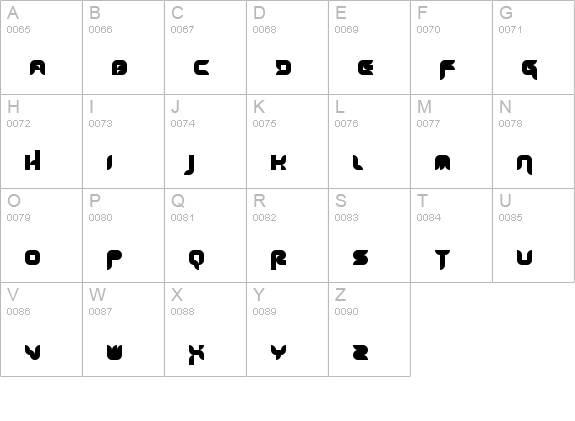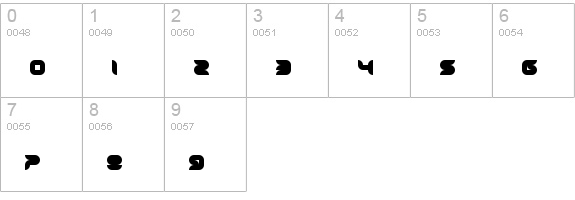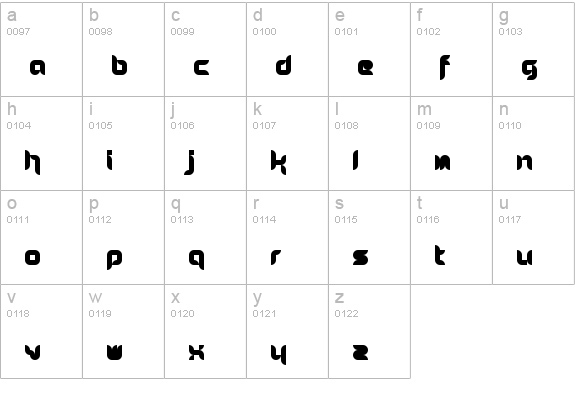
Stuntcroft Regular Font Details
Stuntcroft Regular is the standard, neutral variant in the Stuntcroft typeface family \xE2\x80\x94 well suited to general body text, paragraphs, and standard typographic work.
Stuntcroft Regular font is a versatile and dynamic typeface that exudes a sense of energy and excitement. With its bold and modern appearance, this font is perfect for adding a touch of flair to any design project. Whether you're creating posters, flyers, or branding materials, Stuntcroft Regular will make your text stand out and grab attention. What's even better is that Stuntcroft Regular font is available for free download at FontsMarket.com. This means you can easily access this stylish font and use it in your projects without any cost. So go ahead and elevate your designs with Stuntcroft Regular font today!